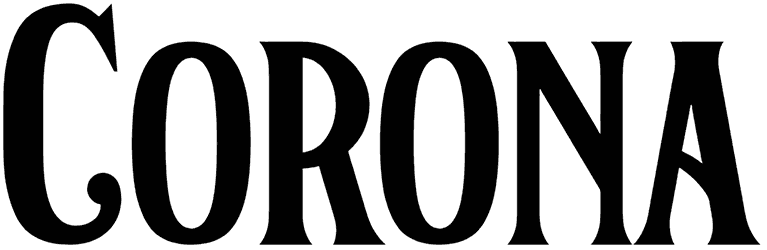
Corona Font
Corona is a serif-style, American classic font that is very reliable! The strong, bold characters of this specific vintage font are serious and observable. If you would like to produce one confident typography that has an old-fashioned feel, you have got yourself the most professional one.
Instead of a set of lowercase letters, it includes 2 unique sets of capitalized alphabet, which are exceptional! A few popular places where you can involve Corona are books, magazines, cards, certificates, and more.